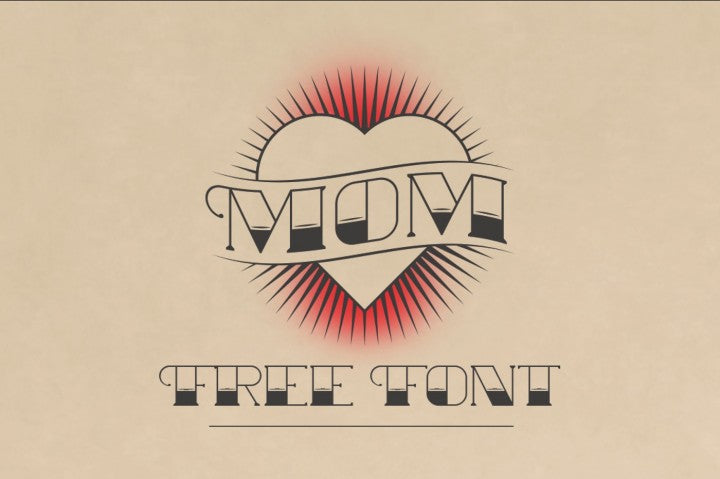
Free Mom Font
Take a look at this stunning free mom font. The Hungry JPEG has created this amazing and beautiful font. Amaze your fellow designers and create stunning designs with this fancy font.